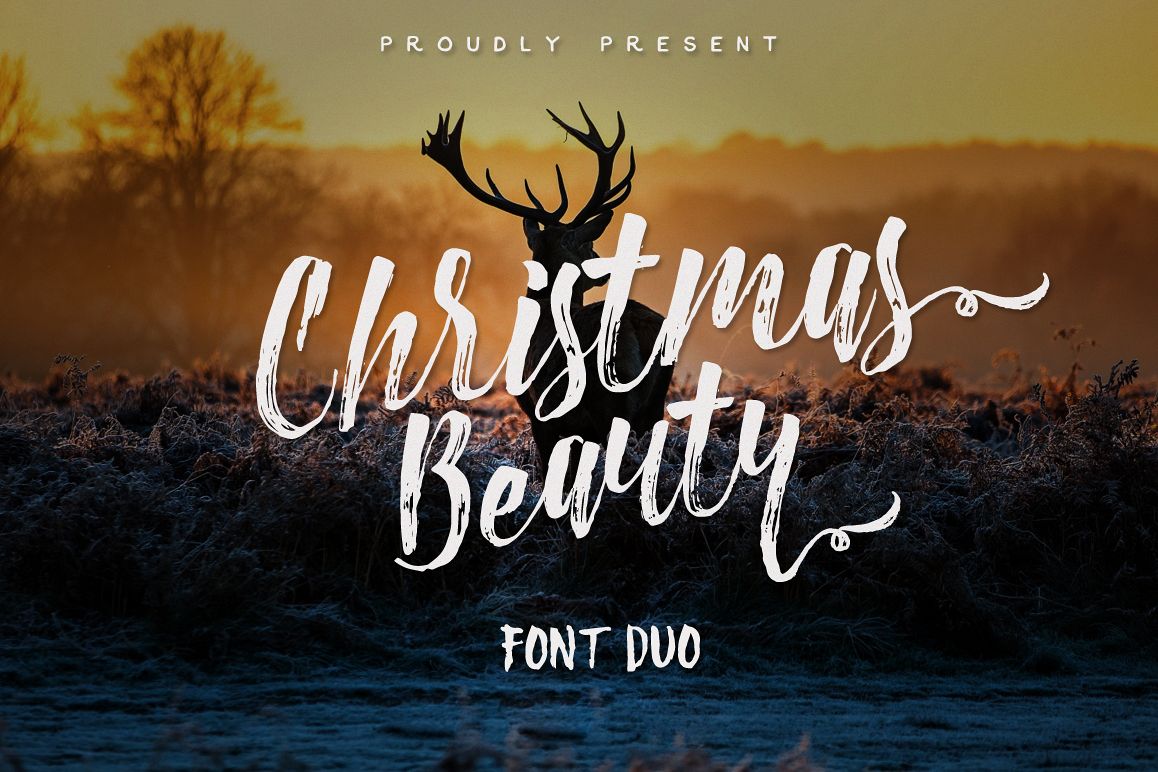
Christmas Beauty Font Duo
Christmas Beauty
Introducing a duo of hand-scripted fonts, carefully designed to work together in harmony for creating masterful typographic designs in a flash!
Included in the pack is 26 additional marker swashes and dot in font form for you to add authenticity to your designs This font is suitable for Christmas will come soon, or for something a little feminine. as the author honestly I really like texture in this font that looked a little different, we do not have to edit it again in Photoshop to get the texture brush.
• This font are support for multilanguange, and there is also ligature and contextual alternate for some letters. for the ligature you can see at the "MUG MOCKUP" in double "f" character. and for the contextual characters is in the end of the words.